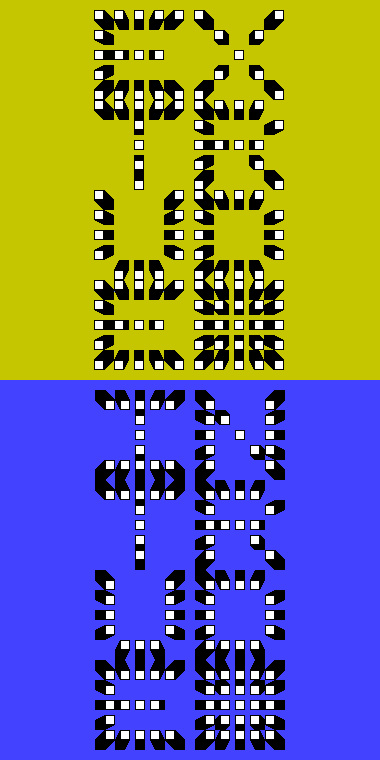
A masterful bit of craftsmanship (as is "Intrude") 10/10
Fantastic new font with convincing perspective effect. I like both versions. 10/10
@p2pnut & @Frodo7 -- Thank you both for the kind words. Out of the perception of failure (InTrude) emerges success (ExTrude)!
It's awesome that you were able to formulate all those extrusion angles out of the fontstructor and then use them effectively.
I wish there was some way to animate the extrusion.
This gives an interesting effect I think. To say the least lol.
@thalamic -- Thank you for the kind words, Thalamic. Your animation idea has me inspired!
Honestly, only 45° and 30/60° angles were used with no composites or stacking. Starting with "InTrude's" grid (as seen in letter "b"), 25 single hollow Square bricks were arranged on the FontStruct grid. Unfortunately I spaced them too far apart for the proper effect, and the angles got too difficult to use at such a reduced size. The scale of the final product(s) was increased to 10x to match the scale of the original single-brick hollow square.
Starting from the center: if you go one row/column away, only 1/2 of the shadow is allowed to appear; at 2 rows/columns away, the full shadow appears. Cripsycraker's terrific animation shows how I simply flipped each of the 24 individual brick-groups vertically and then horizontally of the letter "a" to turn "InTrude" into "ExTrude". Of course, there was no need to flip the center brick!
Once the letter "a" was created, it was copied into each of the letters (A-Z, 0-9), and finally, the unnecessary bricks were eliminated to create the respective letters.
ExTrude
OneQuarterTrude
BackTrude
Excellent, Goatmeal. This multiple levels of extrusion set is exactly what I had in mind.
One final animation related thought: Fade out the extrusion. This means additional -trude fs, I'm afraid.
Ooooh! I do love a good bit of psychodelia :)
Excellent!!
Lol awesome animation Goatmeal. Now I think we need one more trude font to complete the whole inward/outward cycle for even more psychodelia :P
Now just add Midintrude, and your font family will be complete.
Ingeniously simple design for a complex animation sequence. Great work here Goatmeal!
Dontcha just love a good bit of psychodelia?
Excellent work GM :)
Ooooh, vertigo!
Great!
I like this kind of experiments, dear!